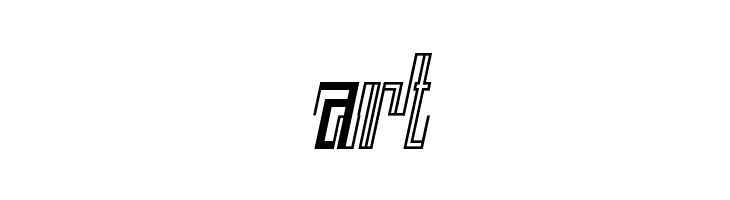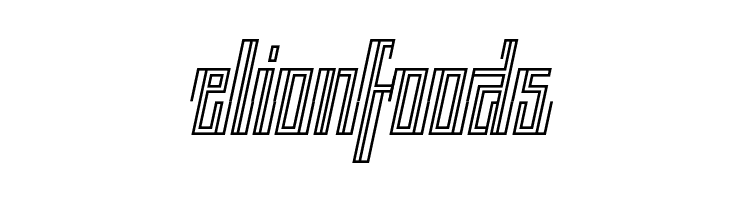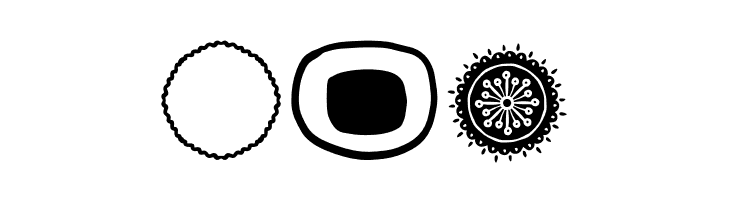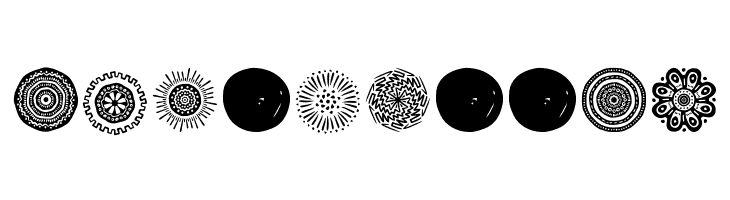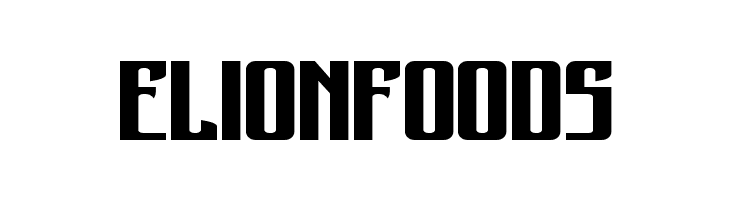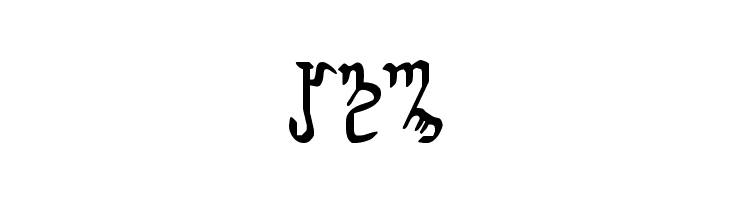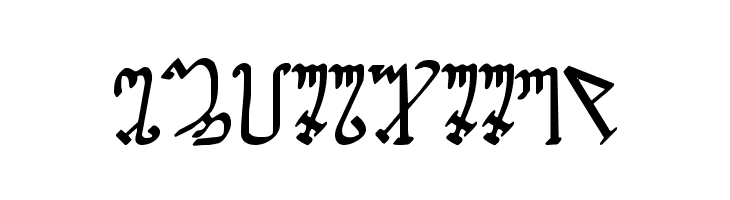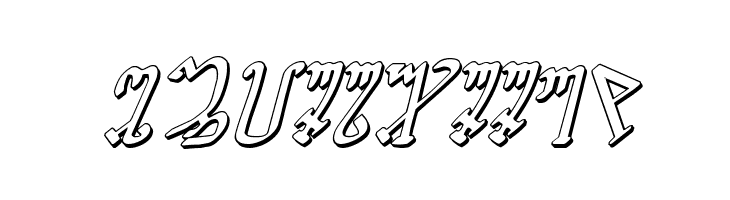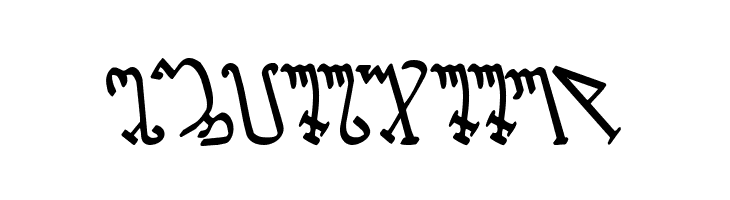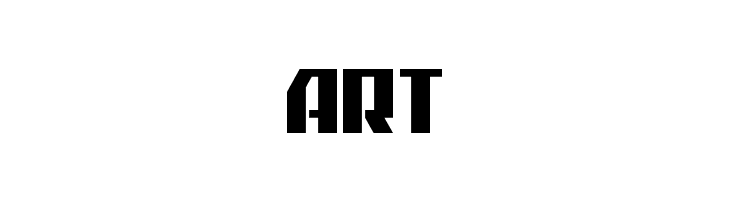
• BACK TO ANCIENT TIME Italic
A bold, italicized font with a modern, futuristic design.
• Tampico Symbols
A diverse collection of decorative symbols with intricate patterns and unique designs.
• Night Traveler Wide
A bold, geometric font with wide, blocky characters ideal for impactful designs.
• Wiccan Ways
A mystical, rune-like font with angular shapes and intricate design.
• Wiccan Ways 3D Italic
A mystical, 3D italic font with bold, angular lines and a magical aesthetic.
• Wiccan Ways Italic
A mystical, angular font with a handwritten, magical script style.
• Wiccan Ways Leftalic
A bold, mystical font with angular, rune-like characters and a leftward slant.
• American Grain Condensed
A bold, condensed, and geometric font with a strong industrial feel.
• American Grain
A bold, geometric font with an industrial and modern aesthetic.
• American Grain Chrome
A bold, geometric font with a three-dimensional, retro-futuristic style.